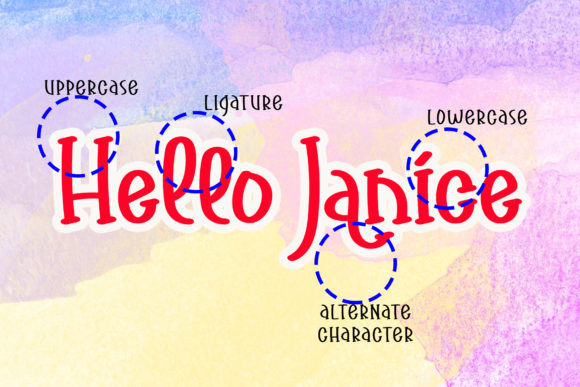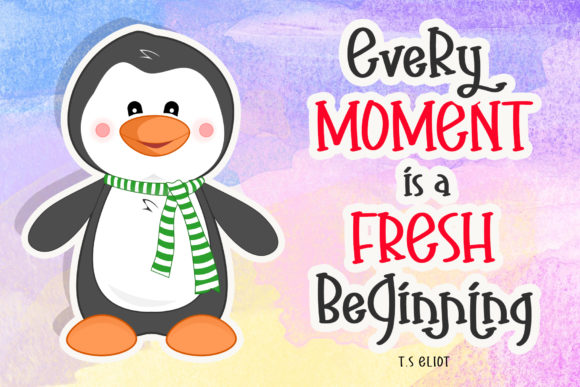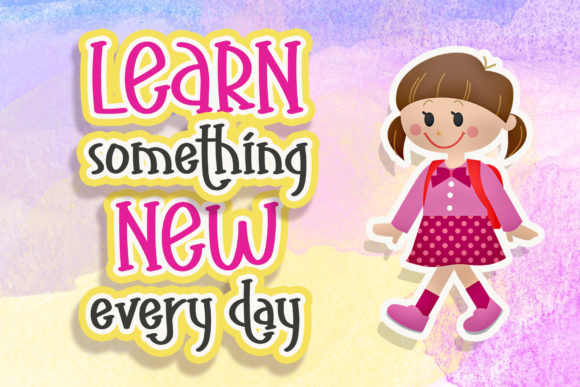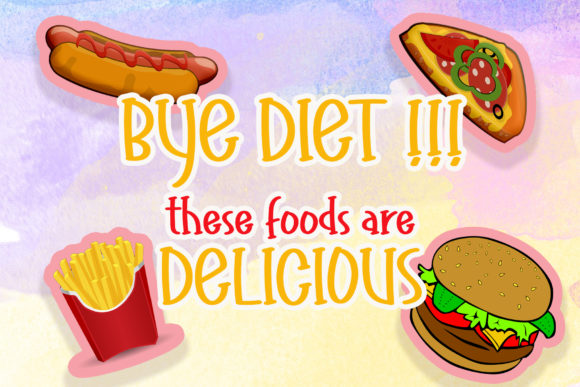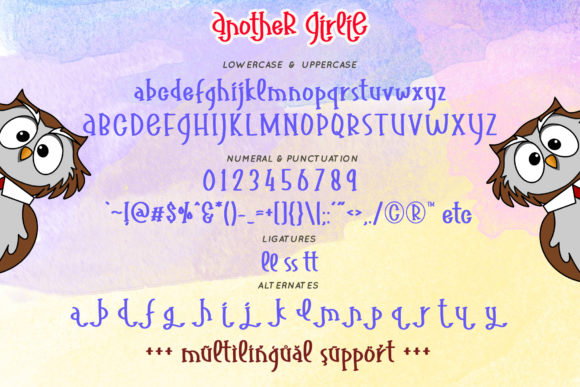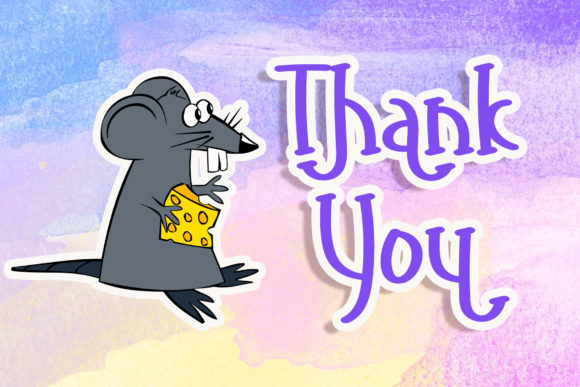
Introducing Another Girlie Font: The Sweet and Playful Handwritten Font You Need!
Are you tired of using the same old fonts for your crafting projects? Do you want to add a touch of sweetness and playfulness to your designs? Look no further than Another Girlie Font! This delightful handwritten font is perfect for crafters, designers, and anyone looking to add a personal touch to their work.
What Makes Another Girlie Font So Special?
Another Girlie Font is a unique and charming handwritten font that is sure to capture the hearts of designers and crafters alike. Its sweet and playful style makes it perfect for a wide range of projects, from DIY crafts to digital designs. With its distinctive playfulness, Another Girlie Font is sure to add a touch of personality to any project.
Key Features of Another Girlie Font
- Handwritten style: Another Girlie Font is a genuine handwritten font, giving it a personal and authentic feel.
- Sweet and playful: This font is perfect for projects that require a touch of whimsy and fun.
- Unique playfulness: Another Girlie Font has a distinctive style that sets it apart from other fonts.
How to Use Another Girlie Font in Your Projects
Another Girlie Font is versatile and can be used in a wide range of projects, including:
- DIY crafts: Use Another Girlie Font to add a personal touch to your scrapbooking, card making, and other DIY crafts.
- Digital designs: This font is perfect for use in digital designs, such as social media graphics, blog posts, and website headers.
- Paper crafting: Add a touch of sweetness to your paper crafting projects, such as gift tags, invitations, and paper flowers.
- Stationery: Use Another Girlie Font to create custom stationery, such as journals, notebooks, and letterheads.
Tips and Tricks for Using Another Girlie Font
Here are some tips and tricks to help you get the most out of Another Girlie Font:
- Experiment with colors: Another Girlie Font looks great in a variety of colors, so don’t be afraid to experiment and find the perfect hue for your project.
- Mix and match: Combine Another Girlie Font with other fonts and graphics to create a unique and eye-catching design.
- Pay attention to size: Make sure to adjust the size of Another Girlie Font to fit your project, as it can be a bit delicate.